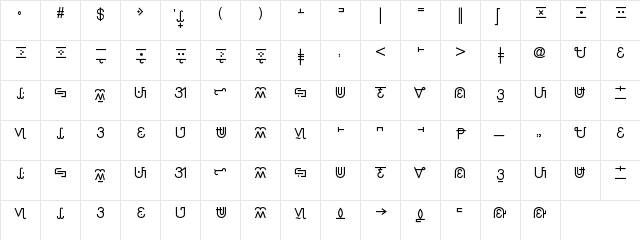
Panggasinan Linear -Normal Regular
Design Context for Panggasinan Linear -Normal Typeface
Panggasinan Linear -Normal takes a measured approach to typography — its balanced proportions and neutral character make it a reliable workhorse for both digital and print work.